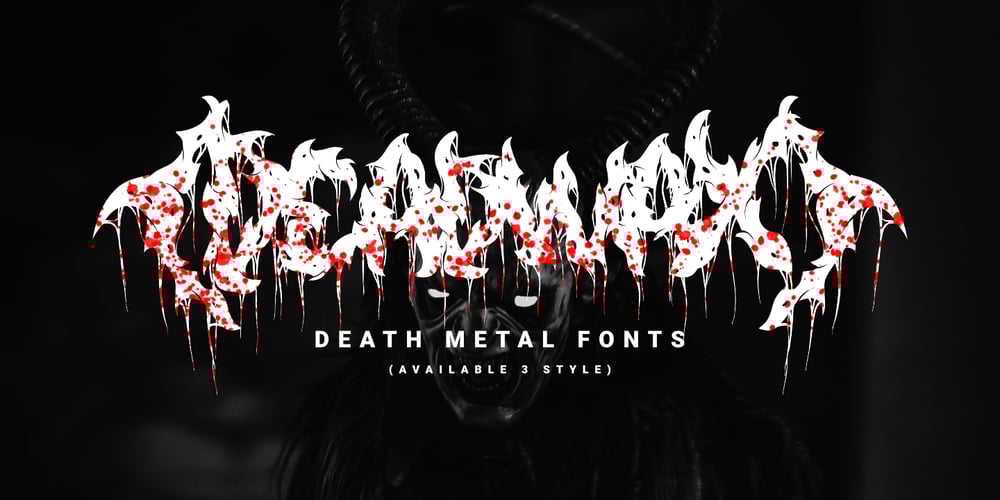
Deadwax
Deadwax font
Deadwax Font Family was designed by Prio Nurokhim Aji and published by Prioritype. Deadwax contains 3 styles and family package options. Deadwax – Death Metal FontsThis is it, the death metal font you are looking for with a brutal impression on each character. There are 3 styles where each letter is drawn one by one accompanied by loud music to get the feel.Very cool and suitable for design projects such as logos, clothing brands, posters, horror movies, album covers and many more and ready to be typed. Features: Uppercase, Lowercase, Numeral, Punctuation, Multilingual. Multilingual contained: Afrikaans, Albanian, Asu, Basque, Bemba, Bena, Breton, Catalan, Chiga, Cornish, Danish, Dutch, English, Estonian, Filipino, Finnish, French, Friulian, Galician, German, Gusii, Indonesian, Irish, Italian, Kabuverdianu, Kalenjin, Kinyarwanda, Luo, Luxembourgish, Luyia, Machame, Makhuwa-Meetto, Makonde, Malagasy, Manx, Morisyen, North Ndebele, Norwegian Bokmål, Norwegian Nynorsk, Nyankole, Oromo, Portuguese, Quechua, Romansh, Rombo, Rundi, Rwa, Samburu, Sango, Sangu, Scottish Gaelic, Sena, Shambala, Shona, Soga, Somali, Spanish, Swahili, Swedish, Swiss German, Taita, Teso, Uzbek (Latin), Volapük, Vunjo, Zulu. Thanks.